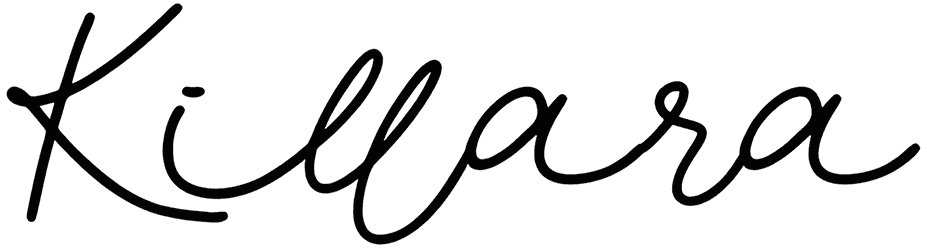
Killara Font
Killara is a handwritten font with a careless, unique look. It could be used to make a statement in many print and digital projects, especially those with a casual look. With its comic flair, this cursive font is ideal f…
Killara is a handwritten font with a careless, unique look. It could be used to make a statement in many print and digital projects, especially those with a casual look.
With its comic flair, this cursive font is ideal for album covers, Christmas cards, video game titles, and more. This font is perfect for you, so get it now and browse the rest of our fonts to find others that work well with this one in your project.